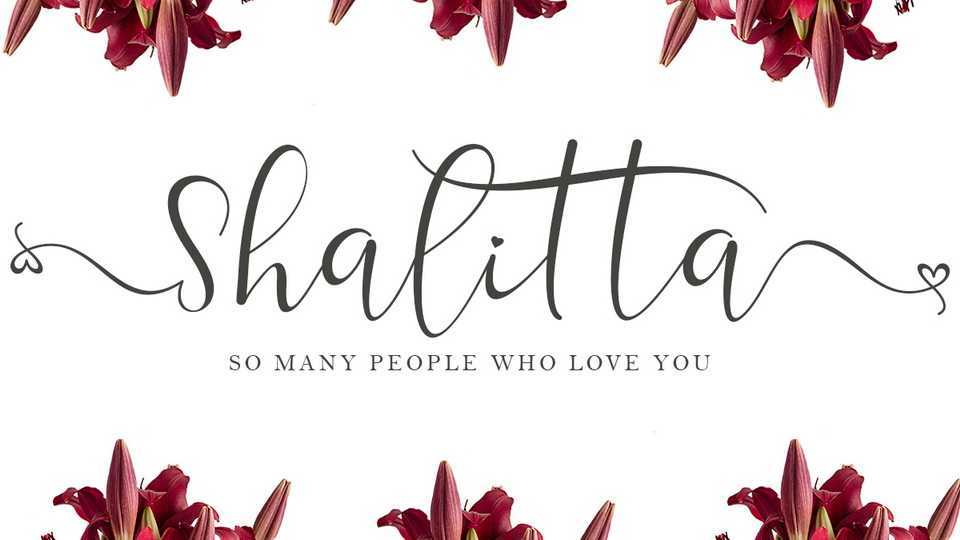
Download Shalitta font, a beautiful modern calligraphy typeface made with happy and affectionate feelings. The letters are so unique that they are perfect for all types of work.